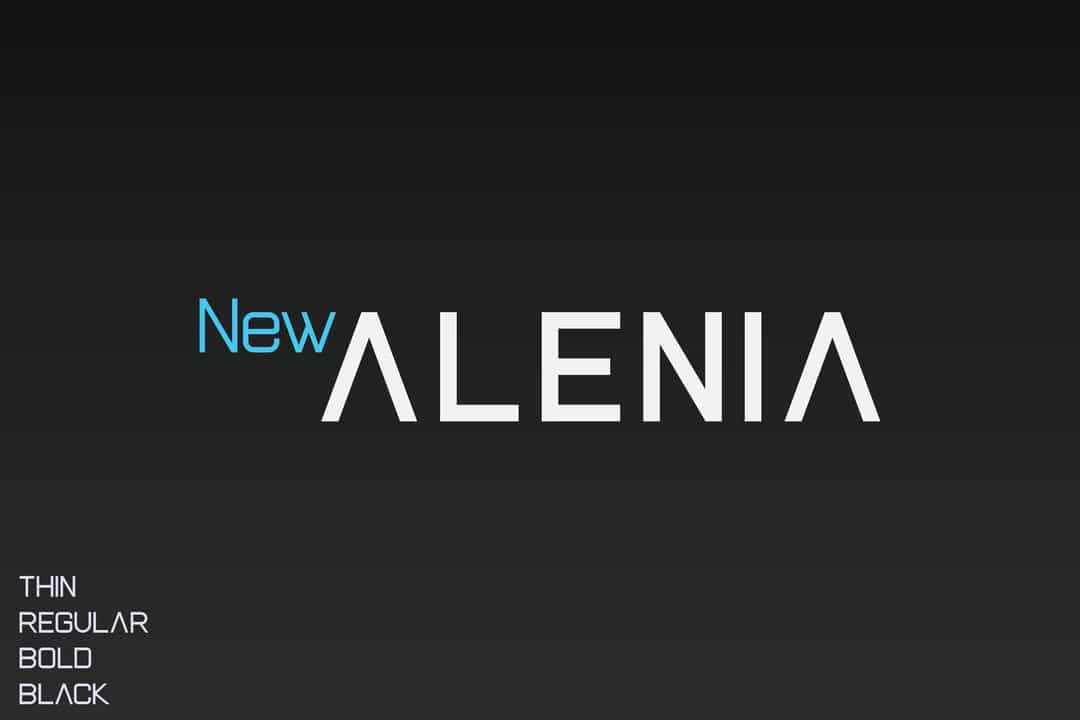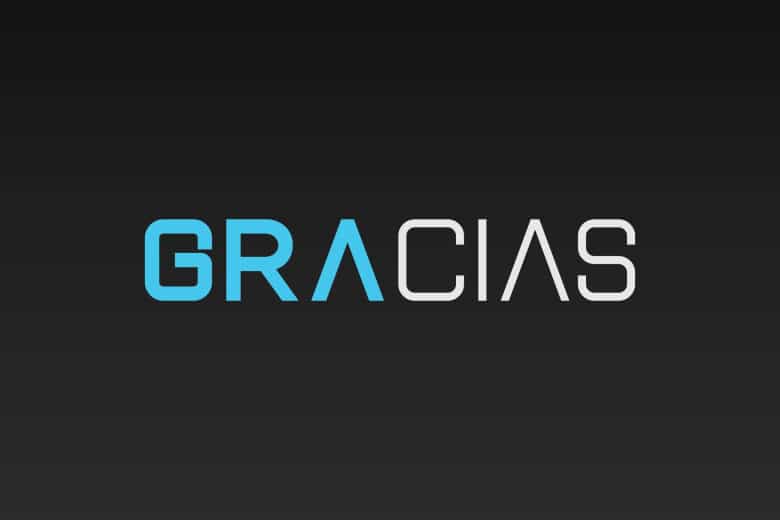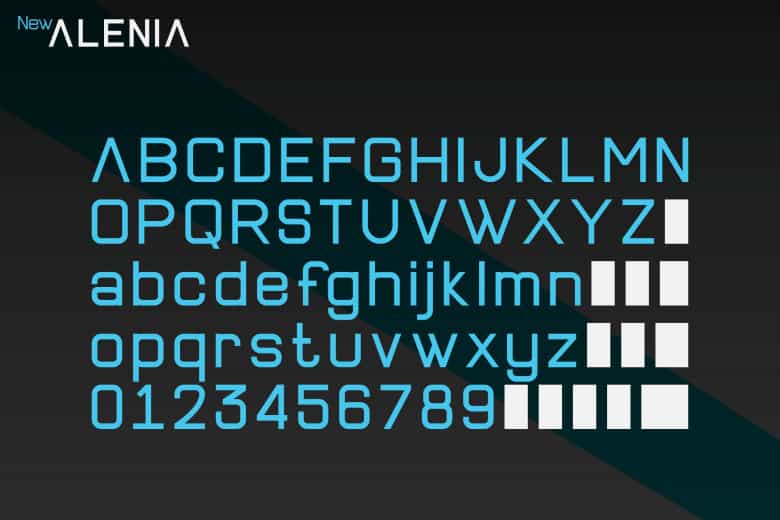
New Alenia is an eye-catching sans serif font perfect for flyers, posters and prints alike. Use it in your designs and explore its limitless possibilities; use this font in greeting cards, logos posters branding name cards stationery design titles blog headers art quotes typography as well as typography! Available with four distinct styles (Thin Regular Bold Black).